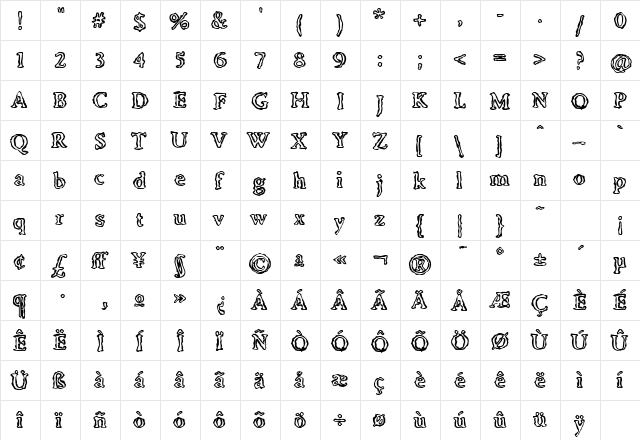
Irregular Inline Regular
Design Context for Irregular Inline Typeface
Irregular Inline brings ornamental detail and strong personality to headlines and identities, where visual impact matters more than quiet functionality.
Font Pairing: Pair with a clean neutral sans-serif for body copy to let Irregular Inline's character lead without overwhelming the composition.
Pro Tip: Use Irregular Inline exclusively at display sizes — it was designed to be seen, not read at length. Let a neutral companion handle body copy.